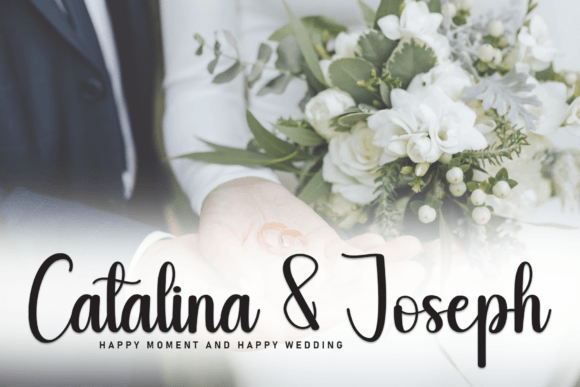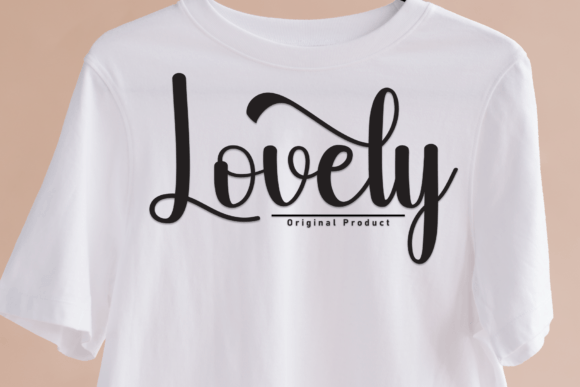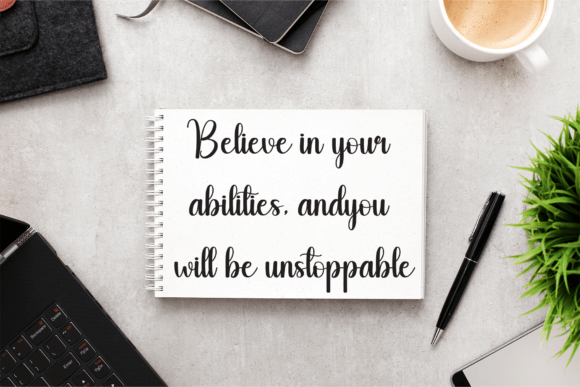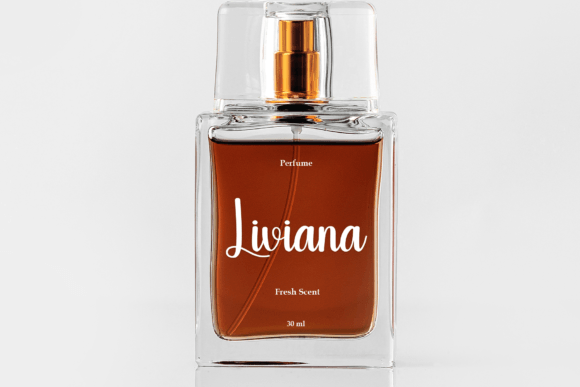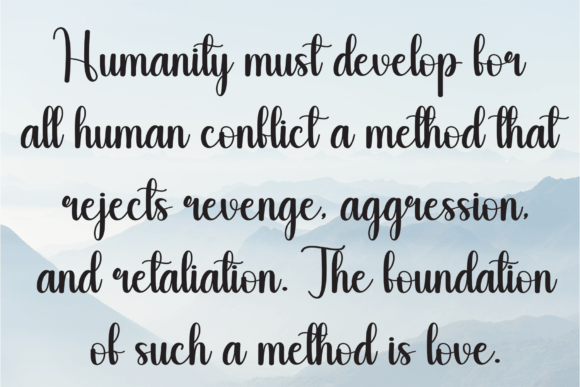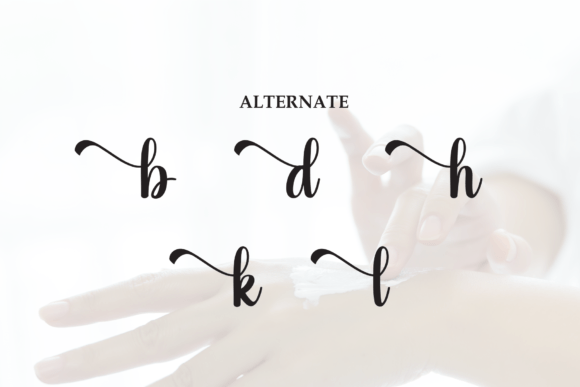
Introducing Apply Font: The Sweet and Friendly Handwritten Display Font
Are you looking for a font that can add a touch of whimsy and fun to your designs? Look no further than Apply Font, a sweet and friendly handwritten display font that’s perfect for a variety of creative projects. In this article, we’ll take a closer look at Apply Font, its features, and how you can use it to elevate your designs.
What is Apply Font?
Apply Font is a beautiful handwritten display font that’s designed to bring a smile to your face. With its cute and fun style, this font is ideal for writing wedding invitations, cards, or any other design that might need a fun touch. Whether you’re a designer, crafter, or DIY enthusiast, Apply Font is a great addition to your font collection.
Key Features of Apply Font
- Handwritten style: Apply Font has a beautiful handwritten style that’s perfect for adding a personal touch to your designs.
- Cute and fun: This font is designed to be fun and playful, making it perfect for designs that need a touch of whimsy.
- Display font: Apply Font is a display font, which means it’s designed to be used at larger sizes, making it perfect for headings and titles.
- Easy to read: Despite its playful style, Apply Font is easy to read, making it perfect for use in a variety of designs.
Use Cases for Apply Font
Apply Font is a versatile font that can be used in a variety of designs, including:
- Wedding invitations: Add a touch of romance and whimsy to your wedding invitations with Apply Font.
- Cards: Use Apply Font to create fun and playful cards for birthdays, holidays, and other special occasions.
- Social media graphics: Apply Font is perfect for creating social media graphics that need a touch of personality.
- Signs and posters: Use Apply Font to create eye-catching signs and posters that will grab attention.
Tips for Using Apply Font
Here are a few tips for using Apply Font in your designs:
- Use it sparingly: Apply Font is a display font, so it’s best to use it sparingly to add emphasis to your designs.
- Pair it with other fonts: Apply Font pairs well with other fonts, so don’t be afraid to experiment with different combinations.
- Experiment with colors: Apply Font looks great in a variety of colors, so don’t be afraid to experiment with different color schemes.